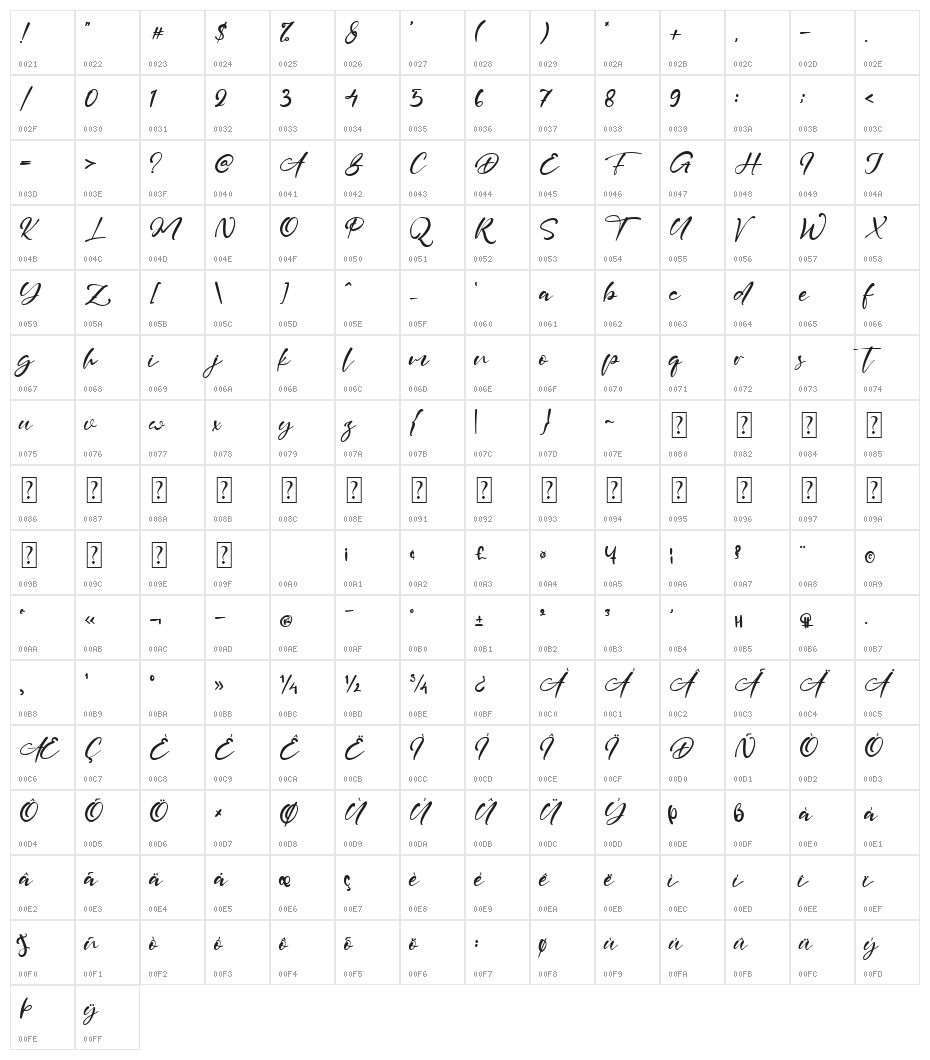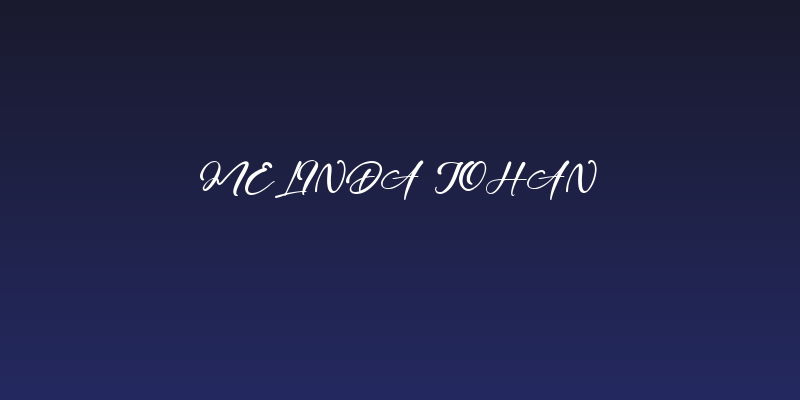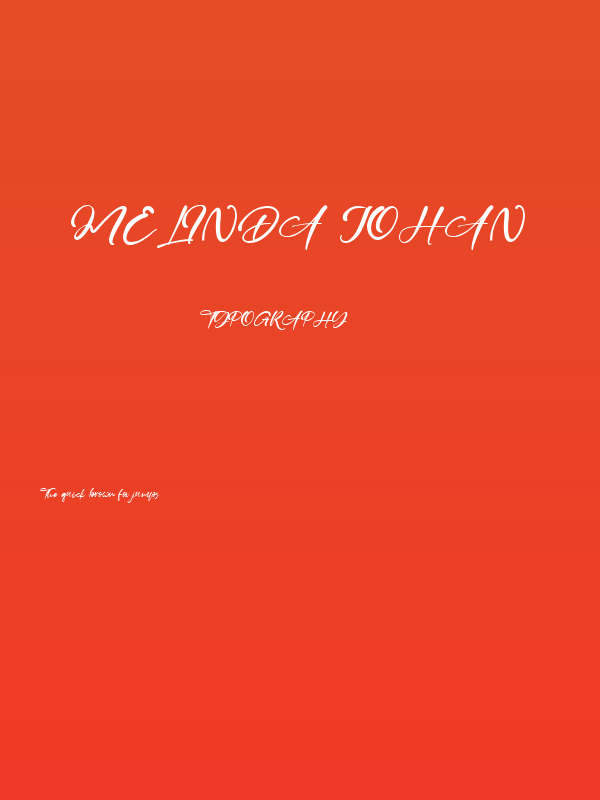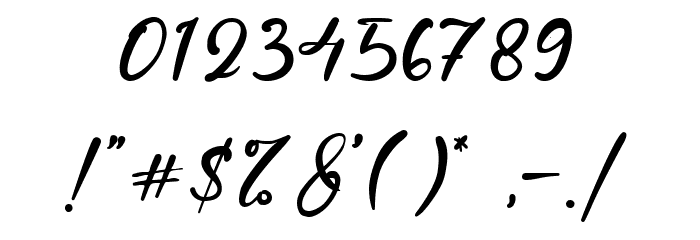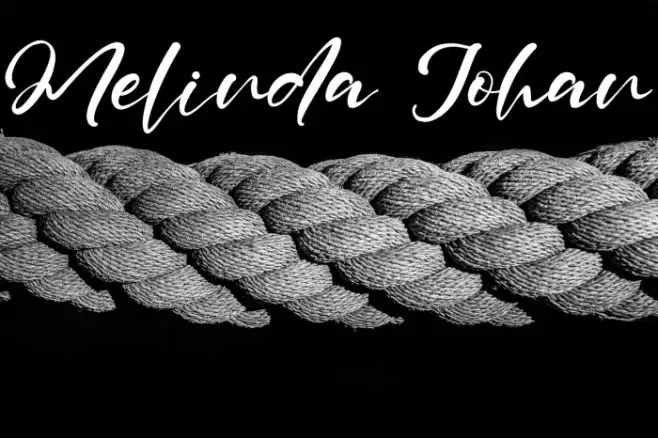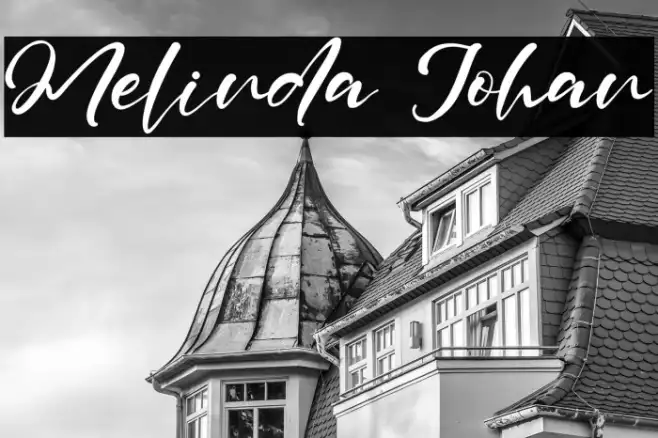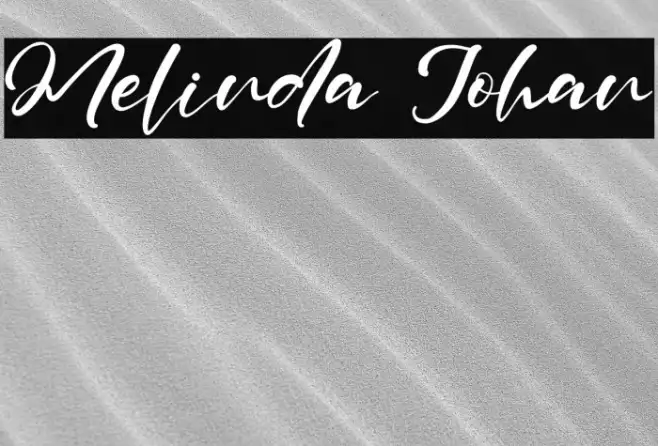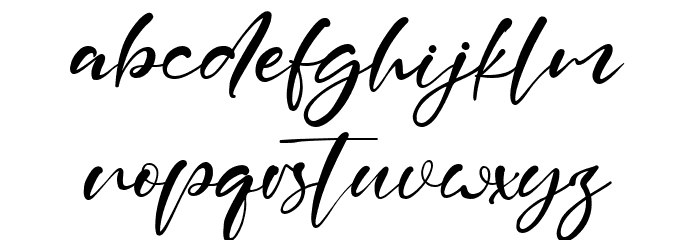
Melinda Johan Font
Melinda Johan Description
This font exudes elegance and fluidity, characterized by its cursive, handwritten style. The letters are connected seamlessly, creating a flowing script that mimics natural handwriting. The uppercase letters are slightly more ornate, with flourishes that add a touch of sophistication. The lowercase letters maintain a consistent style, with smooth curves and loops. The numerals and special characters are designed to match the overall aesthetic, ensuring a cohesive look across all text. This font is perfect for projects that require a personal, artistic touch.
| Overall Style | Elegant, Artistic |
| Proposed Projects | Ideal for wedding invitations, greeting cards, personal branding, and artistic projects. |